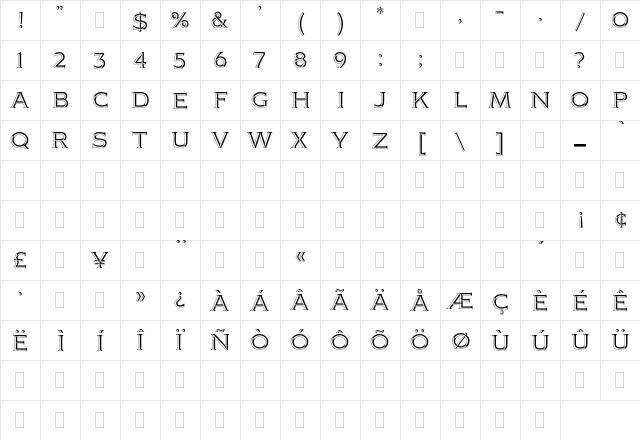
Citation Plain Font Preview
Citation Plain
Design Context for Citation Typeface
Citation takes a measured approach to typography — its balanced proportions and neutral character make it a reliable workhorse for both digital and print work.